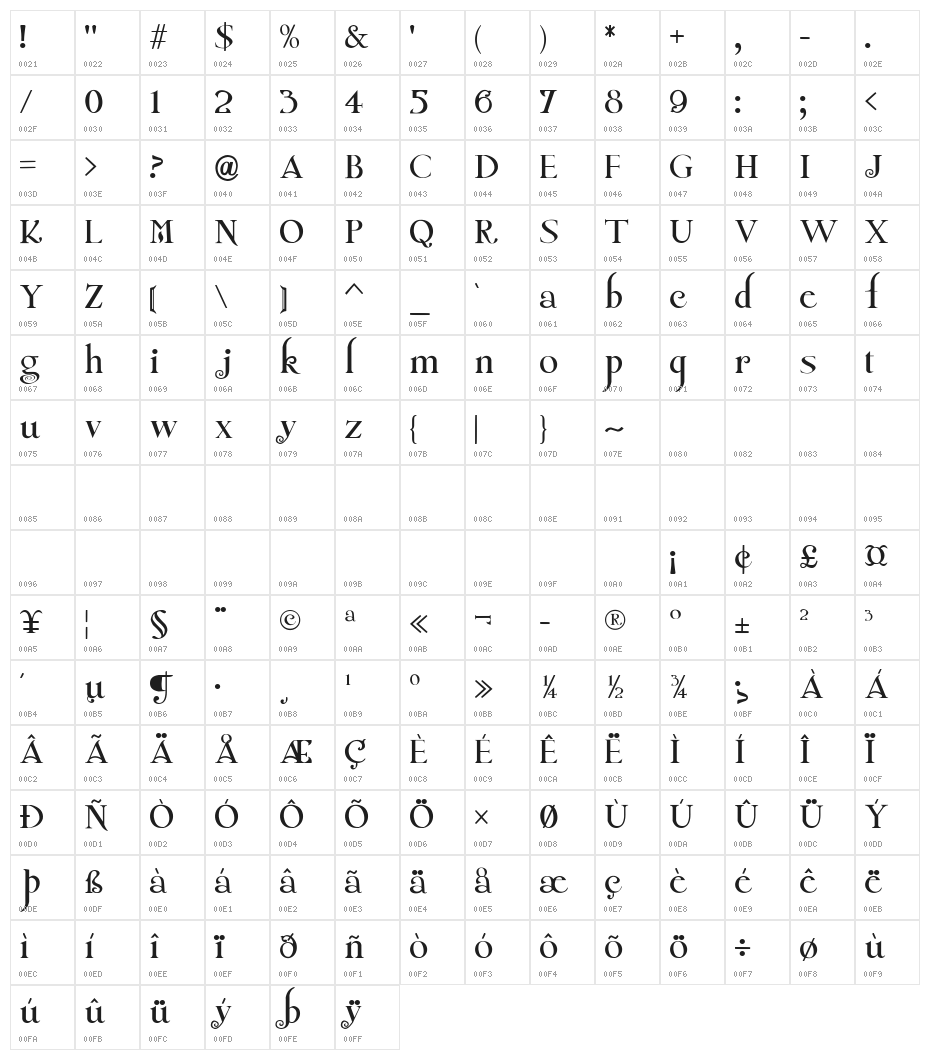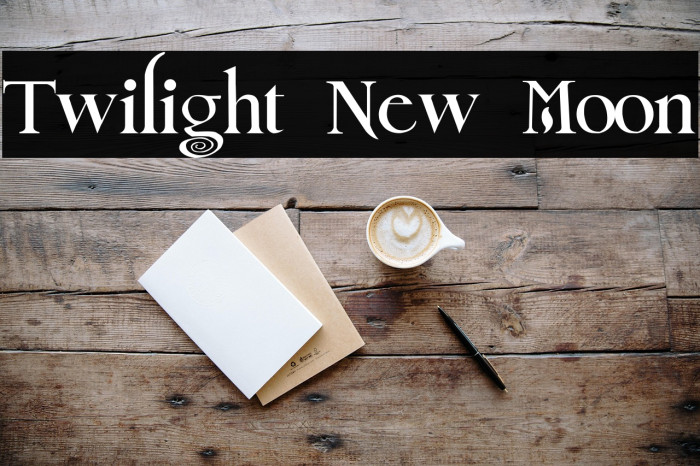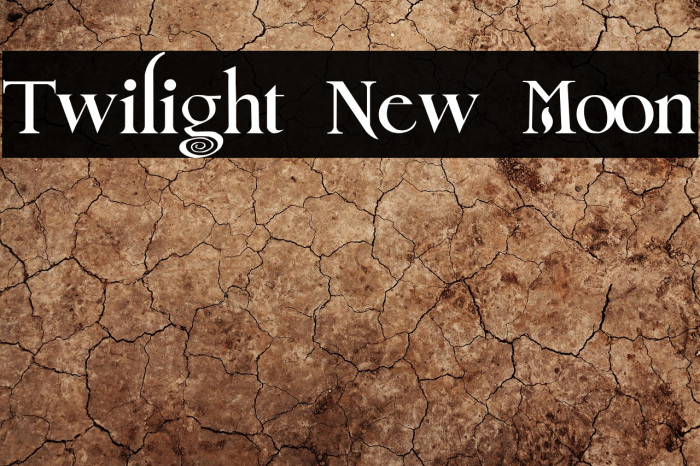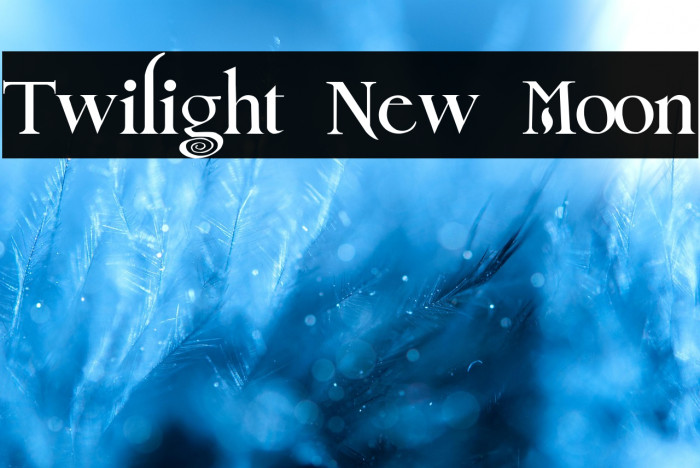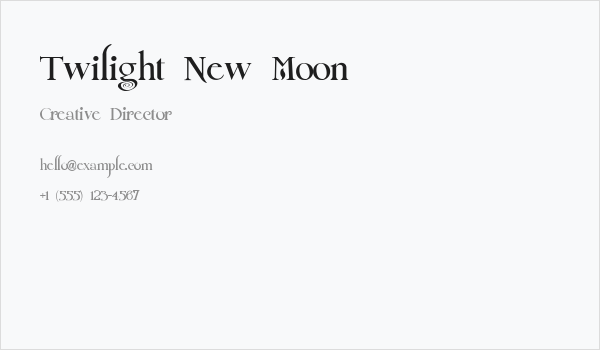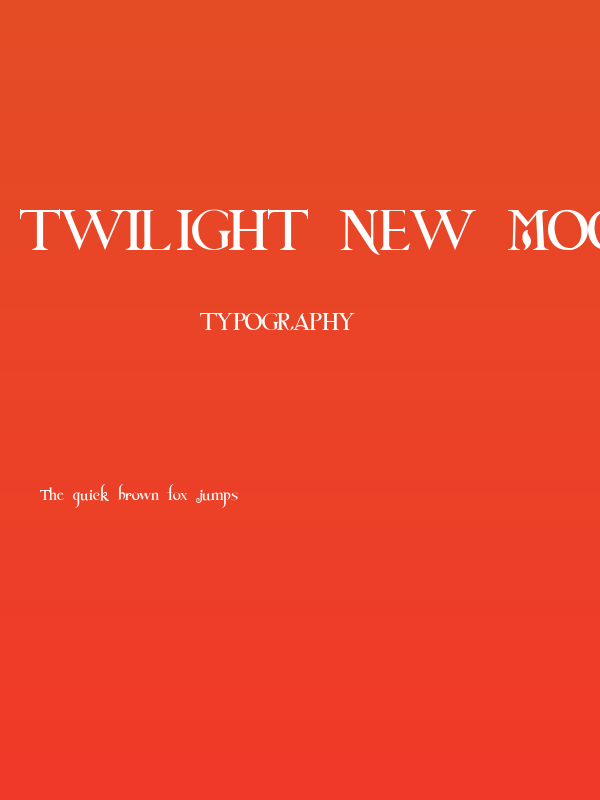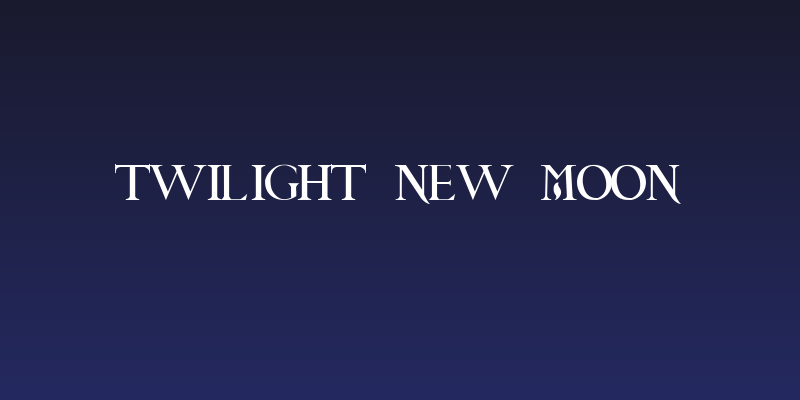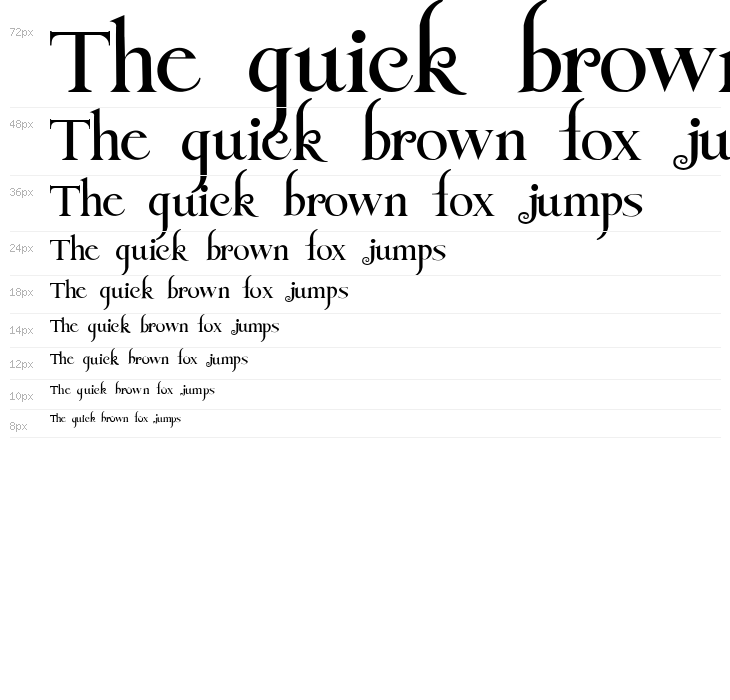
Twilight New Moon Font
Twilight New Moon Description
This font exhibits a unique blend of elegance and flair, characterized by its decorative serifs and intricate swirls. The uppercase letters are bold and commanding, with distinct embellishments that add a touch of sophistication. The lowercase letters maintain a consistent style, with some characters featuring playful curls that enhance their visual appeal. The numerals are well-proportioned and align seamlessly with the overall design. Special characters are thoughtfully crafted, ensuring they complement the alphabetic characters. This font's artistic elements make it suitable for projects that require a touch of drama and elegance.
| Proposed Projects | Ideal for book covers, movie posters, invitations, and branding that seeks a dramatic and sophisticated look. |